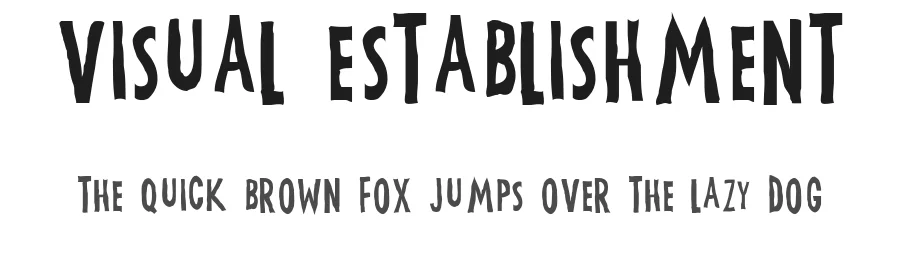
About Yes! Font
Inspired by the font used on multiple Daniel Bryan shirts. No numbers.
UPDATE: Now available in 3D, italic, rotated, shaken, outlined, 3D italic, 3D rotated, 3D shaken, outlined italic, outlined rotated and outlined shaken!
Yes! Font
by Jay Mann